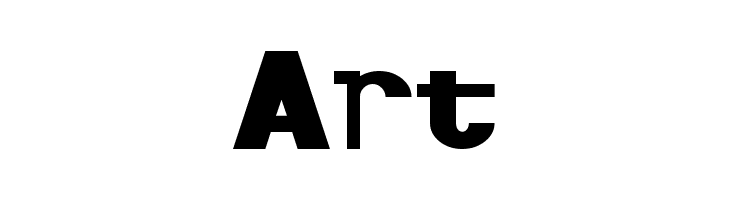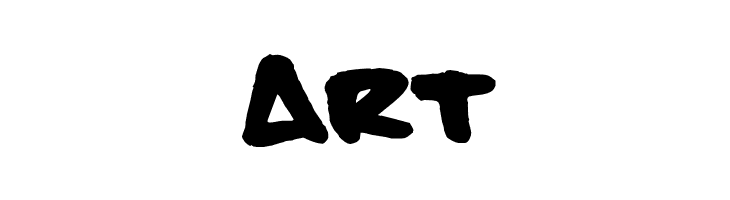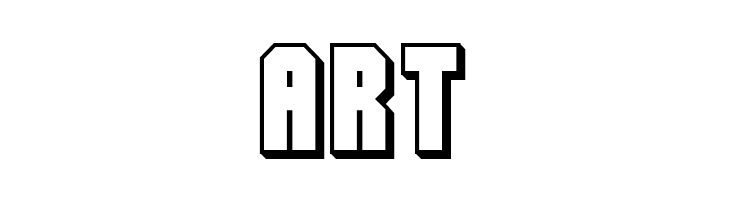
A bold, distressed font with a grunge aesthetic and rugged texture.
A futuristic, bold italic font with geometric shapes and smooth curves.
A bold, geometric font with a playful and modern aesthetic.
A classic blackletter font with sharp, angular strokes and high contrast.
A bold, dynamic font with sharp angles and a slightly condensed form.
A playful, bold font with rounded, bubble-like characters and thick outlines.
A bold, dynamic font with fluid, organic shapes resembling liquid or dripping paint.
A bold, expressive handwritten font with dynamic strokes and a playful style.
A bold, geometric font with a 3D effect, ideal for retro-themed projects.